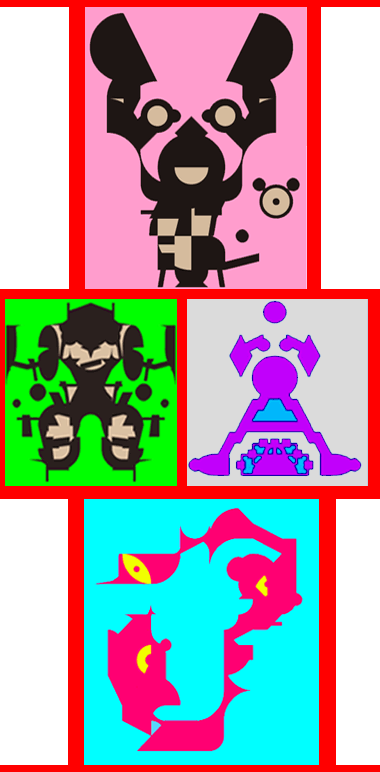
• Please PUSH ZOOM TO MAX and scroll down for a good visit. This graphic suite was inspired by details from some of my alphabetical fonts which served as basis. This font uses 272 different types of bricks and composites
Why Formaldehyde? So that they may be well preserved for future typographers to enjoy. :^)
@Frodo7 : Thanks! I think that, out of the fact i love that word and what it evokes, all this could have escaped from the mind of some mad scientist preserving his experimental "beings" in this solution, even if they're seen "living" because i'more showing their "short life" state because you can imagine such weird genetic can not live a long life.
Nothing of this is really serious, it's just fantasmagory and a certain dose of 2nd degree humour is necessary to understand the title (as for many of my other artworks actually) .
@Goatmeal : i like your explaination, even if consider this work a bit far from "typography"